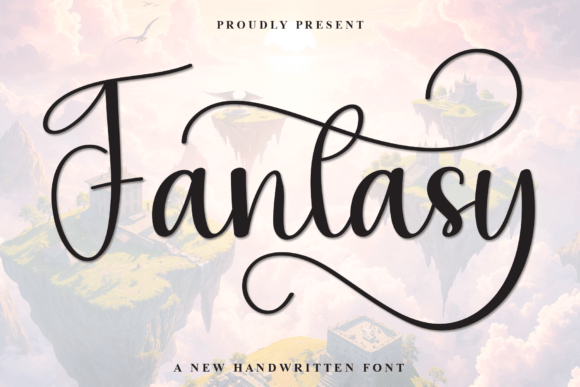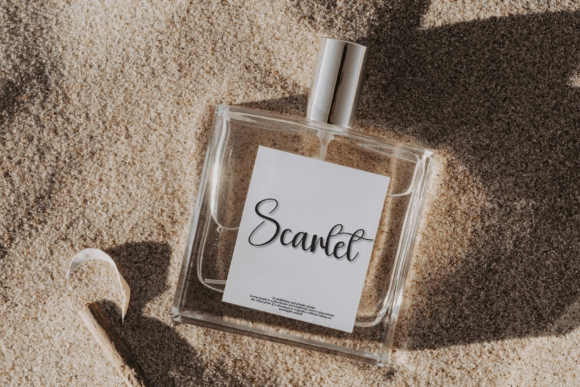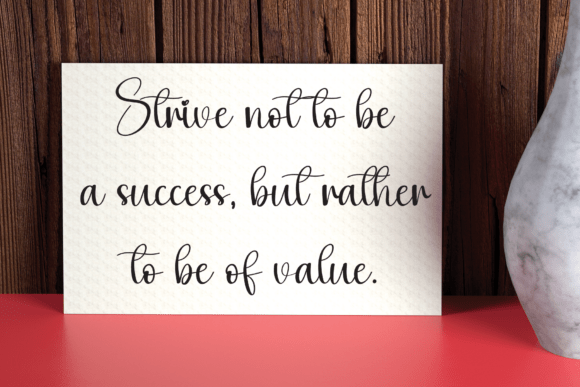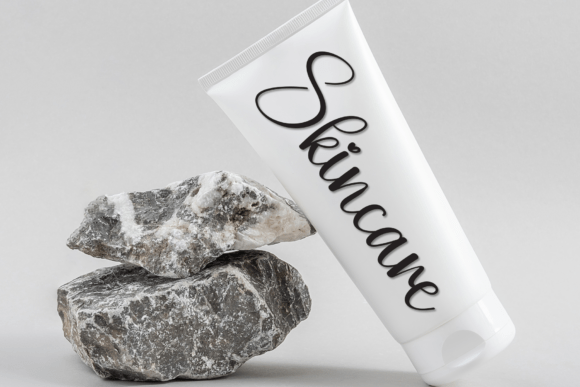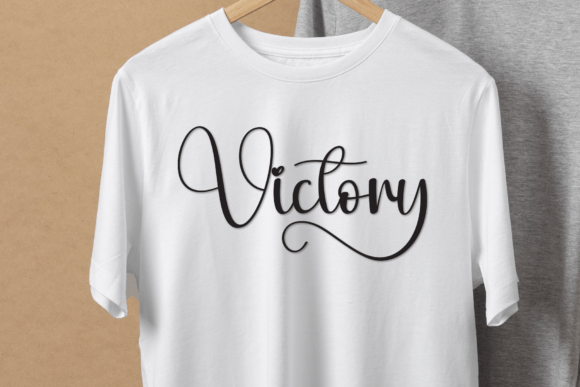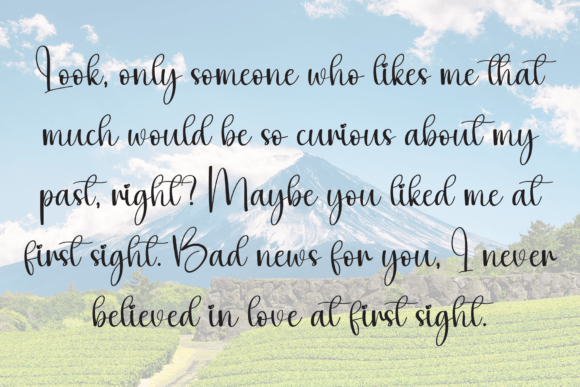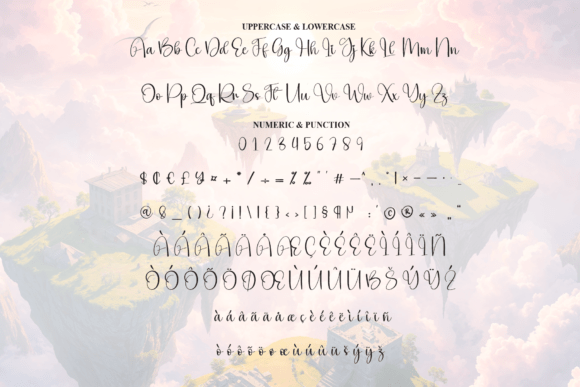
Whispers of Wonder: Unveiling the Enchantment of Fantasy Font
As a designer, there’s nothing quite like the thrill of discovering a new font that sparks your imagination. It’s that moment when the blank page becomes a canvas, waiting for the brushstrokes of creativity to bring your vision to life. For me, it was the first time I laid eyes on Fantasy Font – a whimsical handwritten script that transported me to a world of fairy tales and romantic storytelling.
Fantasy Font is more than just a font; it’s a gateway to a world of dreams and fantasy. Its elegant swashes and dreamy flourishes evoke the essence of classic literature and timeless romance. With its flowing style, Fantasy Font is perfect for book covers, wedding stationery, branding, and fantasy-themed designs that require a touch of magic.
For designers, Fantasy Font is a valuable addition to their toolkit. Its versatility and unique charm make it an ideal choice for projects that demand a touch of whimsy and wonder. Whether you’re creating a fantasy novel cover or designing a wedding invitation, Fantasy Font is sure to add a touch of enchantment to your work.
Fantasy Font Key Features
- Unique Character Set: Fantasy Font features a distinctive set of characters, including swashes, flourishes, and ornaments, adding a touch of whimsy and fantasy to any text.
- High-Quality Typography: Fantasy Font is designed with high-quality typography in mind, featuring precise spacing, balanced proportions, and elegant lines that enhance readability and visual appeal.
Fantasy Font Review
Overall, I’m impressed with the Fantasy Font. It’s perfect for designers looking to add a touch of whimsy to their projects. ✨
- Unique and intricate details in the font’s design, giving it a distinct look.
- Available in a range of weights and styles, making it versatile for different applications.
- Supports a wide range of languages, which is a big plus for global projects.
However, I do have some concerns about the font’s limitations. ⚠️
- The font can be quite busy and may not be suitable for text-heavy content.
- Some letters may be difficult to read at small font sizes, which could impact legibility.
- Not all operating systems or devices may have full support for the font, which could lead to compatibility issues.
Overall, I think Fantasy Font is a great choice for designers who want to add a touch of fantasy to their work. While it may have some limitations, its unique design and versatility make it a worthwhile investment.
For optimal results, use Fantasy Font for titles, headings, and other prominent text elements.
Use it to create a whimsical and magical atmosphere in your designs.
Experiment with different font sizes and colors to add depth and visual interest.
Fantasy Font is ideal for:
– Book covers and book titles
– Movie and video game posters
– Fantasy and sci-fi themed designs
– Children’s book illustrations